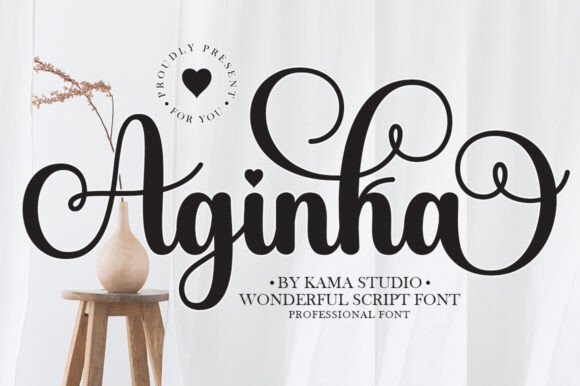
Introducing Aginka Font: The Romantic and Sweet Calligraphy Typeface
Are you looking for a font that can add a touch of romance and sweetness to your designs? Look no further than Aginka Font, a beautiful calligraphy typeface that is perfect for a variety of projects. In this article, we’ll take a closer look at Aginka Font, its features, and how you can use it to create stunning designs.
What is Aginka Font?
Aginka Font is a romantic and sweet calligraphy typeface that features characters dancing along the baseline. This unique design gives Aginka a playful and whimsical feel that is sure to capture the attention of your audience. The font is perfect for a variety of projects, including wedding invitations, thank you cards, quotes, greeting cards, logos, business cards, and more.
Key Features of Aginka Font
Aginka Font has several key features that make it a great choice for your designs. Some of the most notable features include:
- Calligraphy Style: Aginka Font features a beautiful calligraphy style that is perfect for creating romantic and whimsical designs.
- Characters Dancing Along the Baseline: The unique design of Aginka Font features characters that dance along the baseline, giving it a playful and dynamic feel.
Uses for Aginka Font
Aginka Font is a versatile typeface that can be used for a variety of projects. Some of the most popular uses for Aginka Font include:
- Wedding Invitations: Aginka Font is perfect for creating beautiful and romantic wedding invitations that will set the tone for your special day.
- Thank You Cards: Aginka Font is also great for creating thank you cards that are personalized and heartfelt.
- Quotes: Aginka Font is perfect for creating inspirational quotes that are visually appealing and thought-provoking.
- Greeting Cards: Aginka Font can be used to create a variety of greeting cards, including birthday cards, anniversary cards, and more.
- Logos: Aginka Font can be used to create beautiful and unique logos that will help your business stand out.
- Business Cards: Aginka Font is also great for creating business cards that are professional and visually appealing.
Tips for Using Aginka Font
Here are a few tips for using Aginka Font in your designs:
- Use it for Headings: Aginka Font is perfect for use in headings and titles, where its unique design can really make an impact.
- Experiment with Colors: Aginka Font looks great in a variety of colors, so don’t be afraid to experiment and find the perfect color for your design.
- Pair it with Other Fonts: Aginka Font can be paired with other fonts to create a unique and visually appealing design.
Aginka Font is a beautiful and versatile typeface that is perfect for a variety of projects. Its unique design and key features make it a great choice for anyone looking to add a touch of romance and sweetness to their designs. Whether you’re creating wedding invitations, thank you cards, quotes, greeting cards, logos, business cards, or more, Aginka Font is sure to impress.
- What is Aginka Font?
- Aginka Font is a romantic and sweet calligraphy typeface with characters dancing along the baseline.
- What can I use Aginka Font for?
- Aginka Font can be used for a variety of projects, including wedding invitations, thank you cards, quotes, greeting cards, logos, business cards, and more.